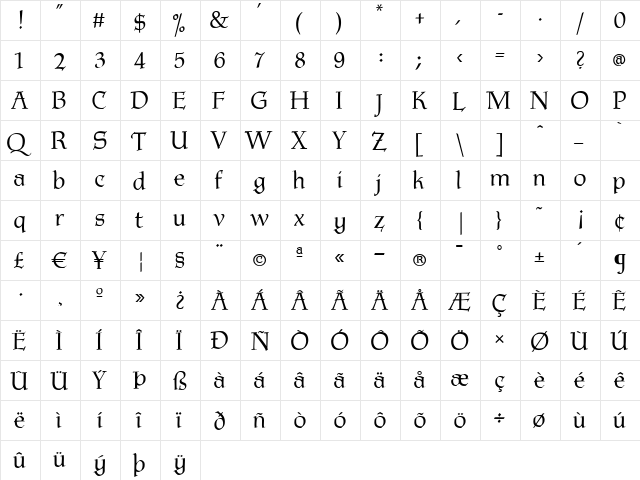
P22Tyndale Regular
Design Context for P22Tyndale Typeface
P22Tyndale offers clean, dependable letterforms without strong stylistic allegiance, making it a practical choice for designers who need flexibility.